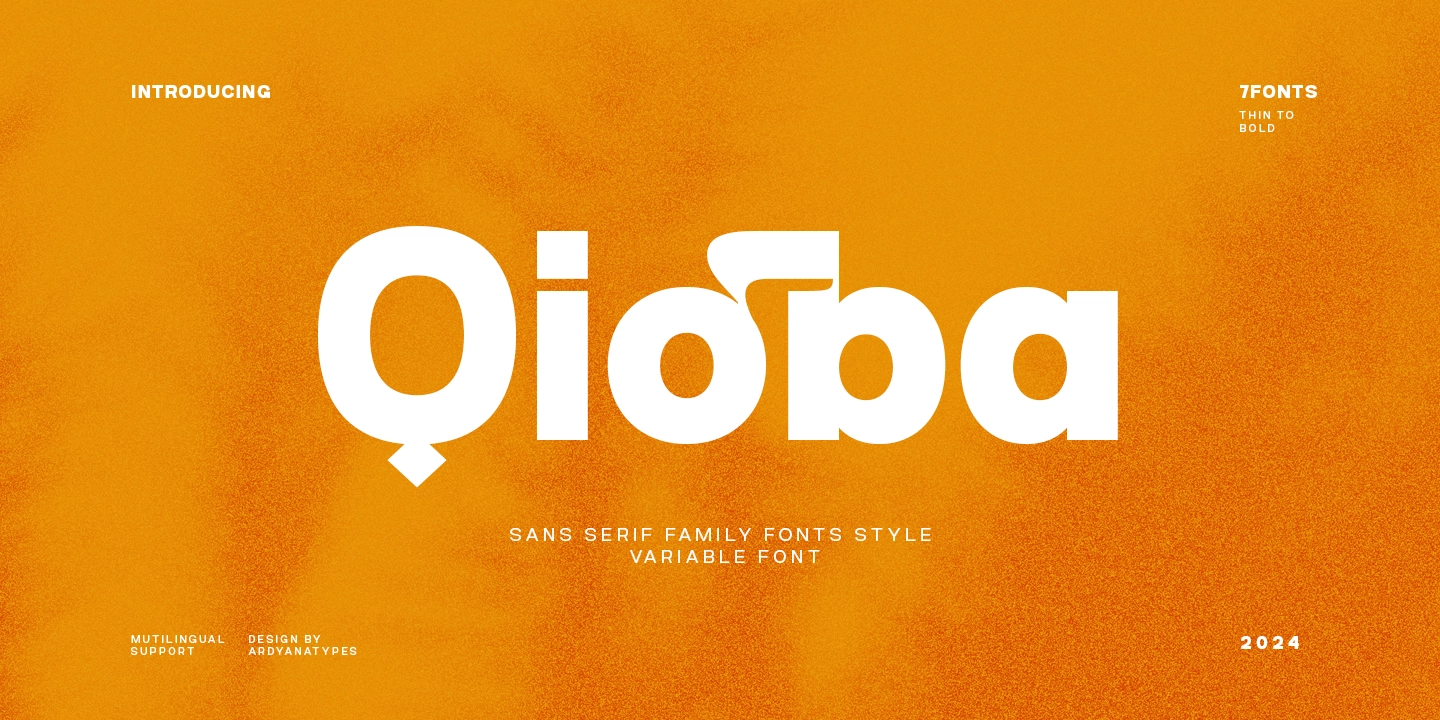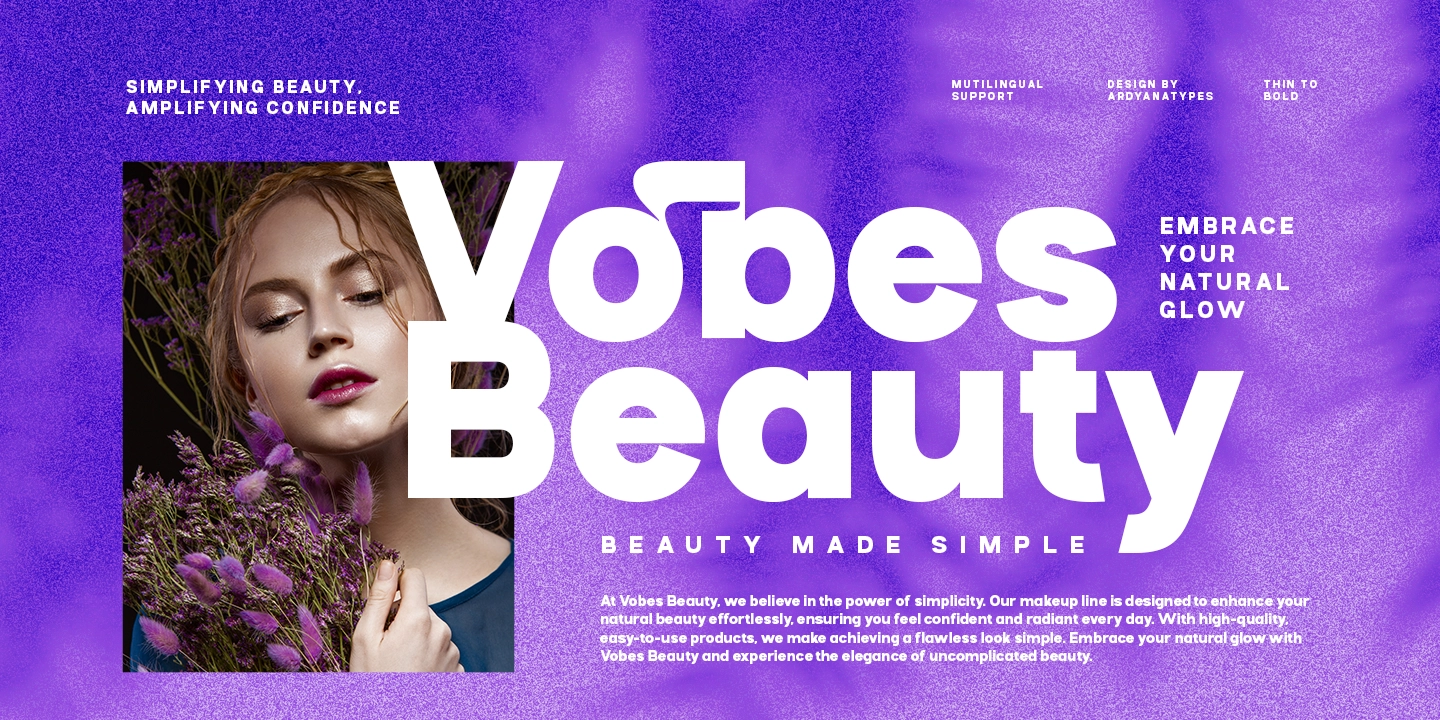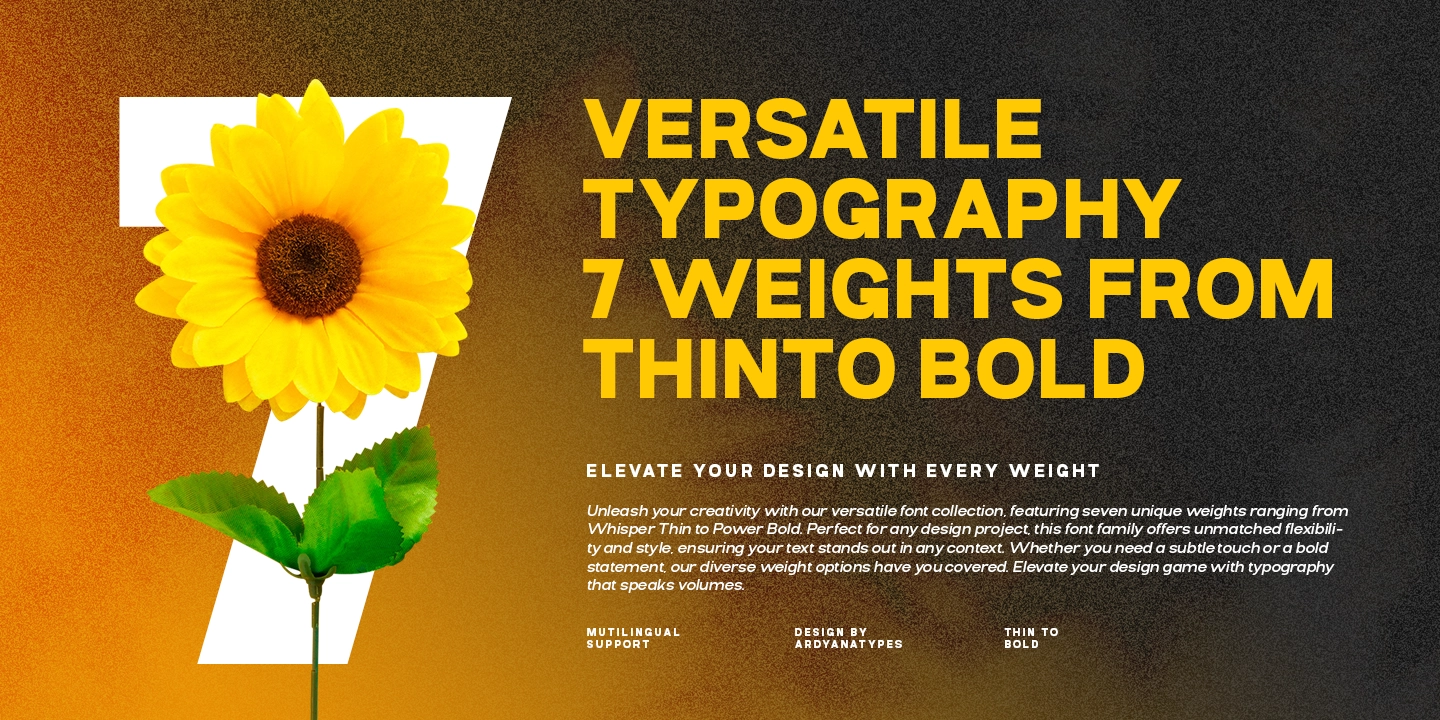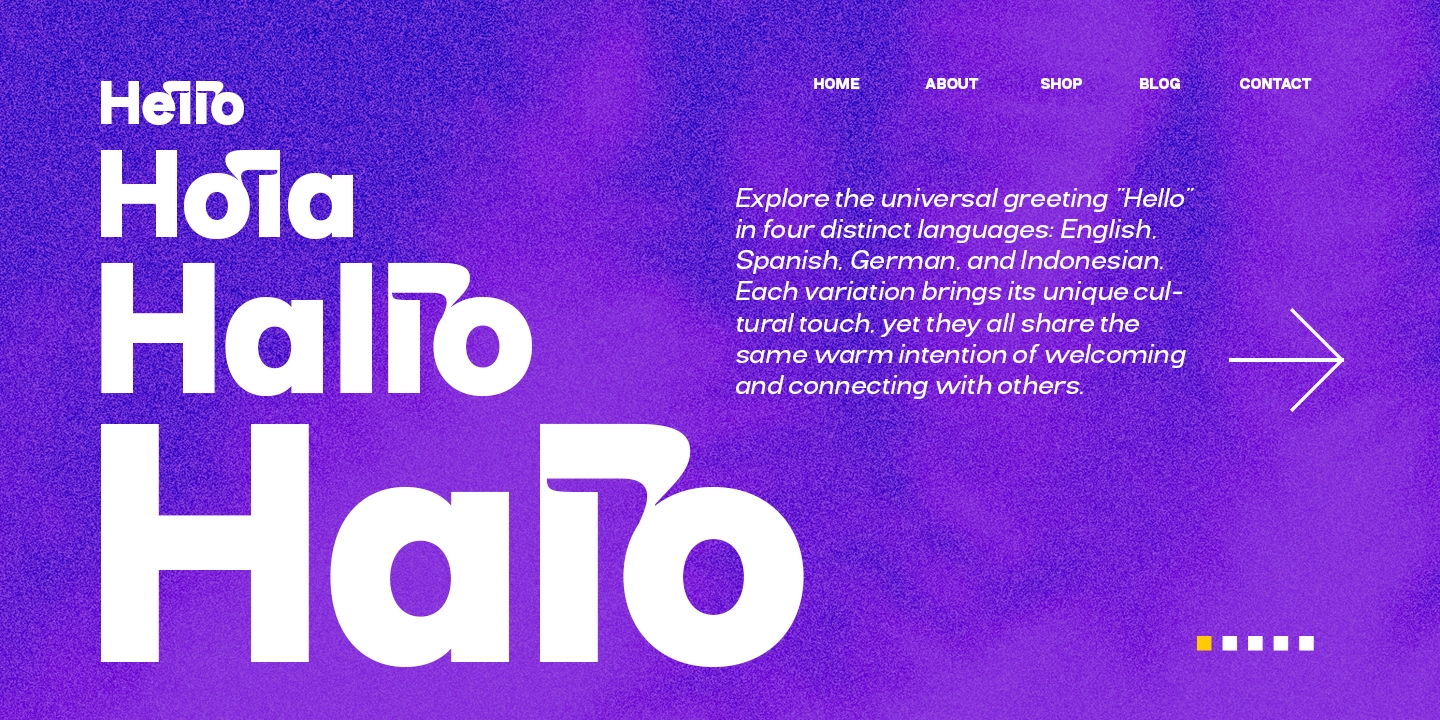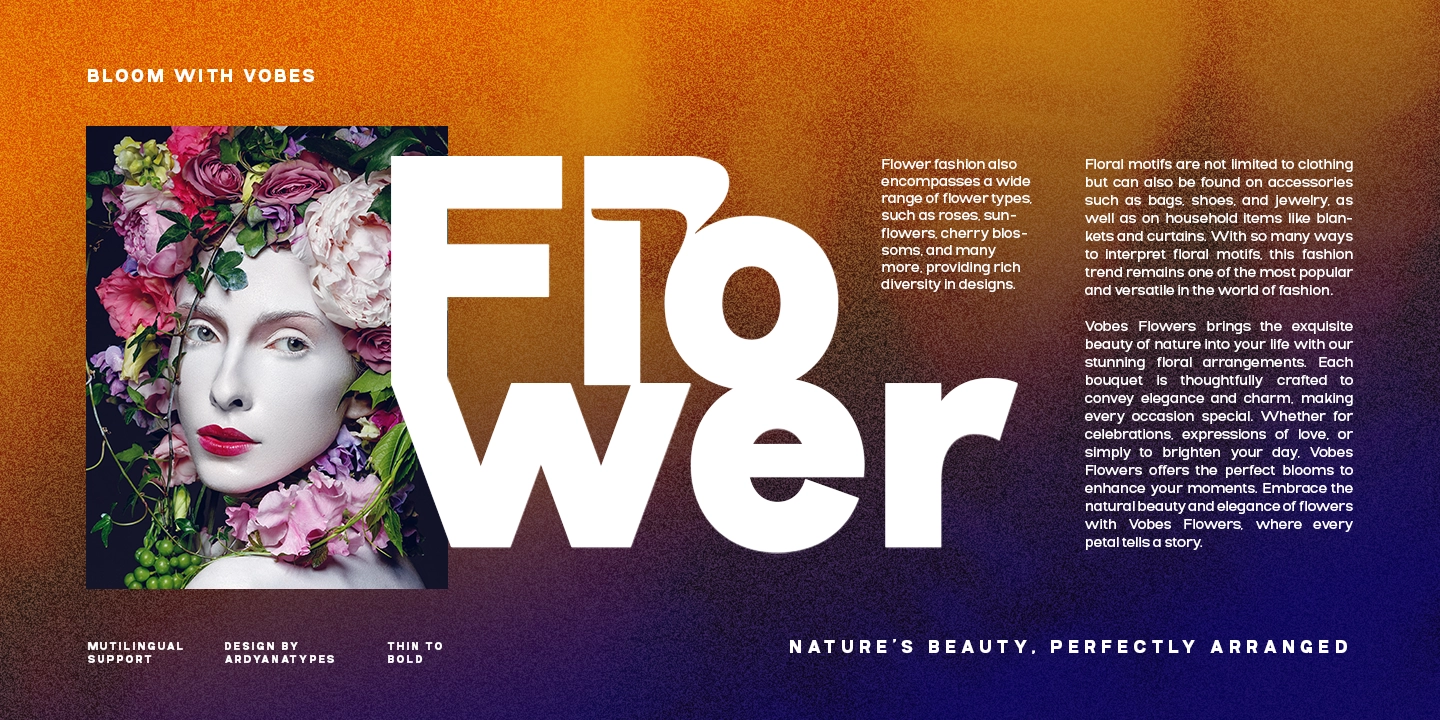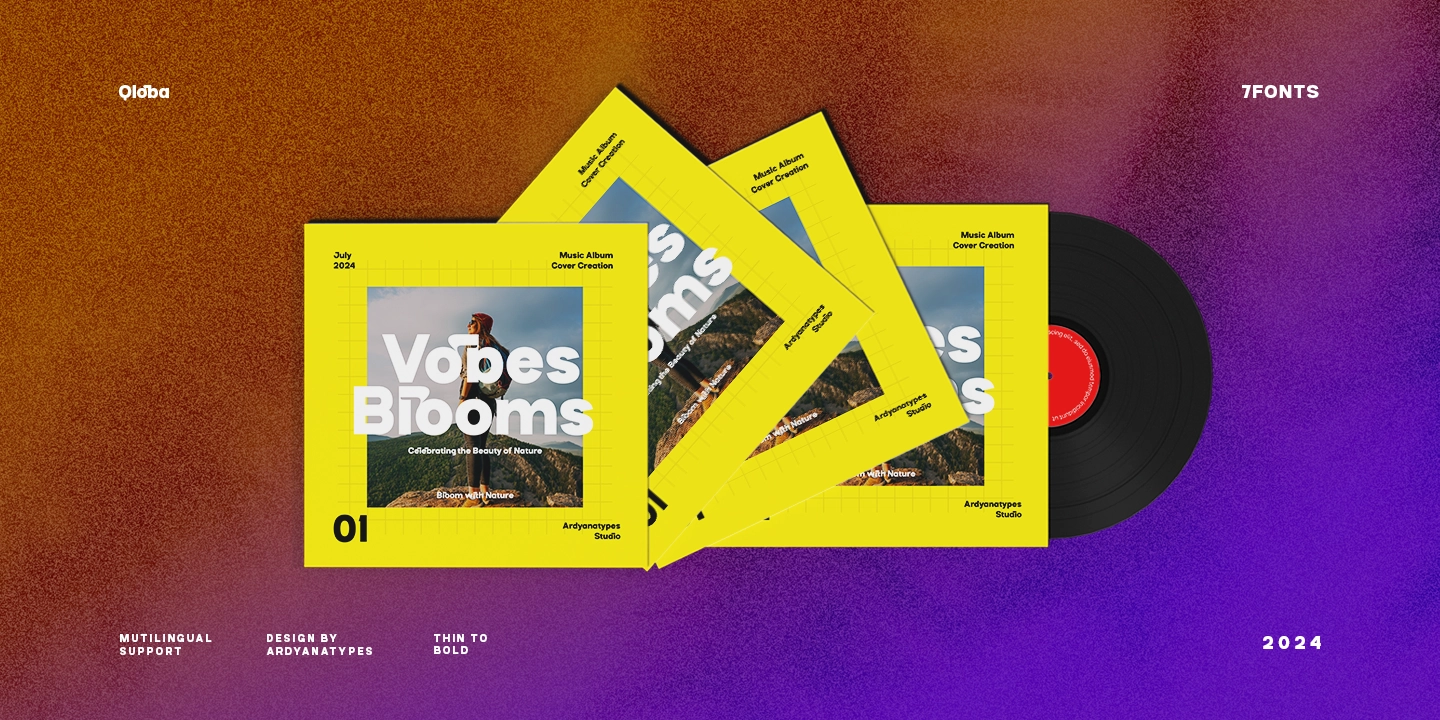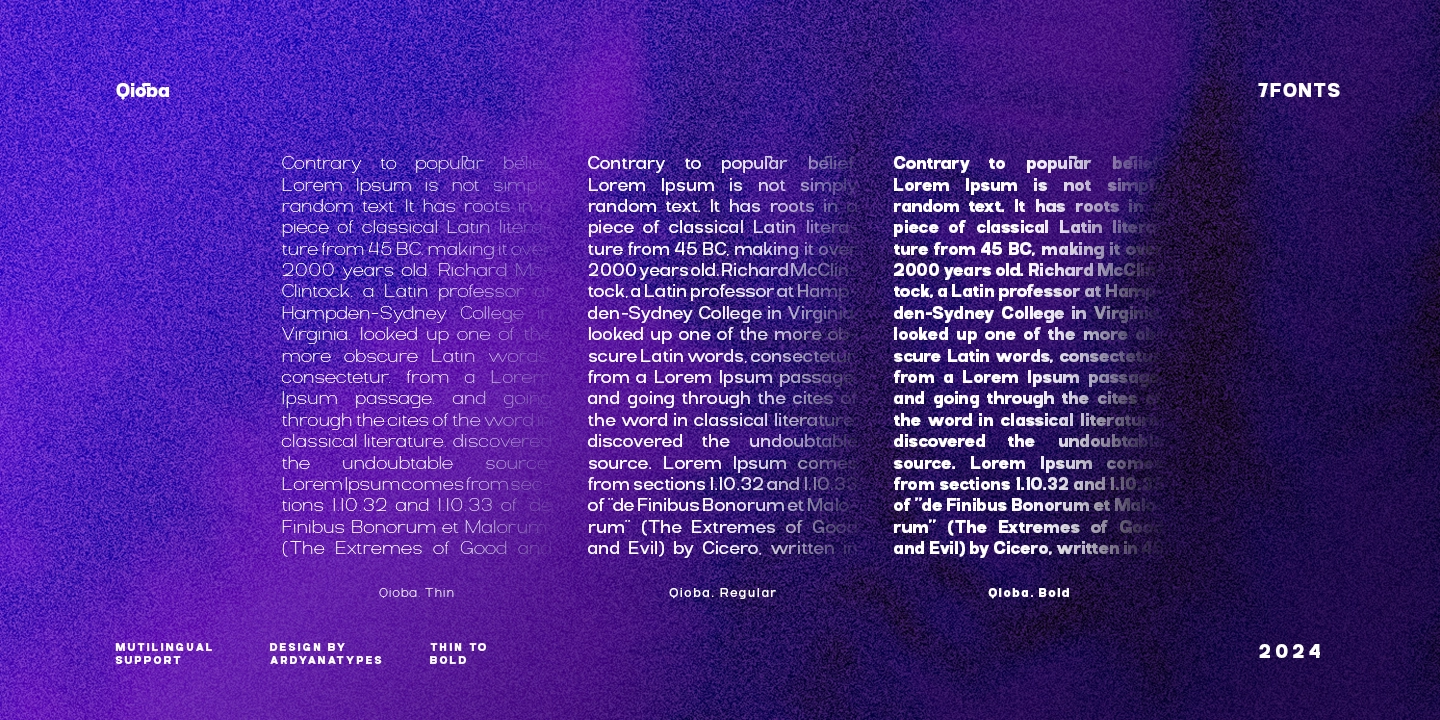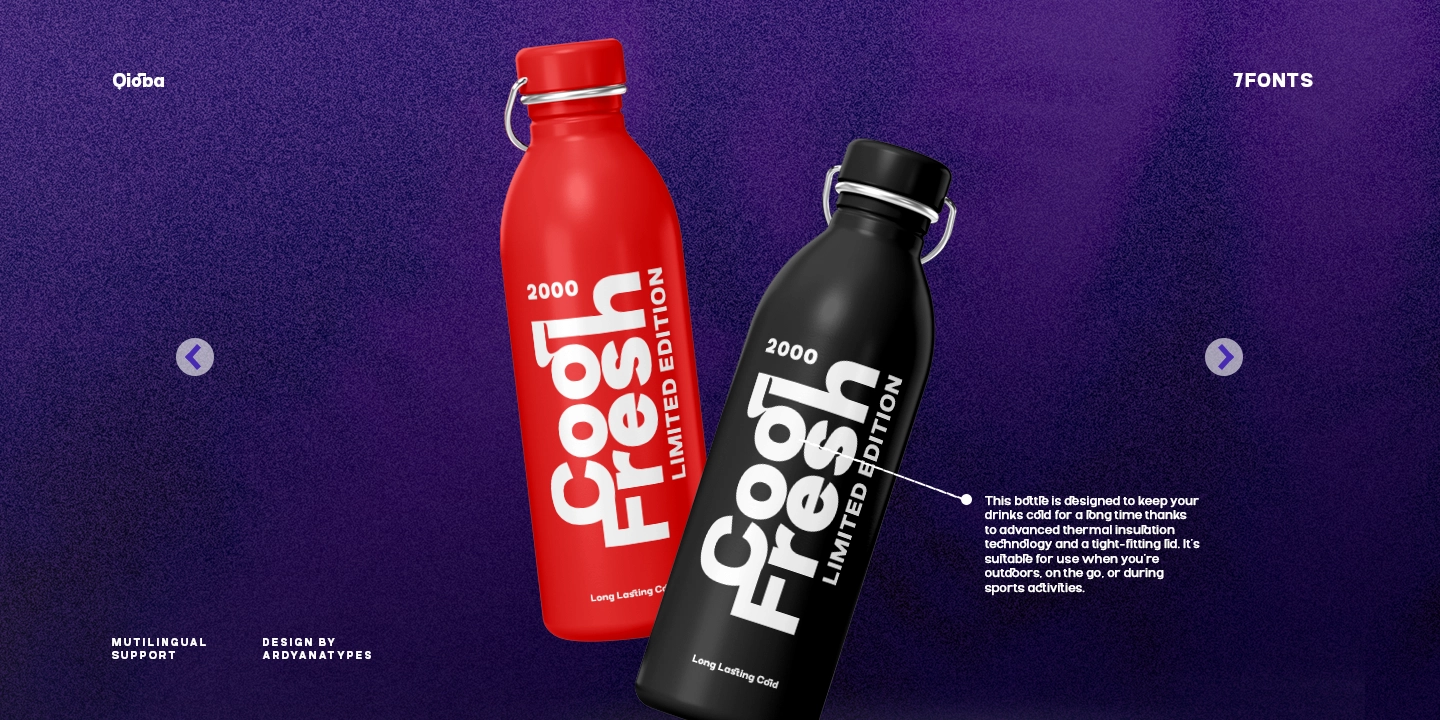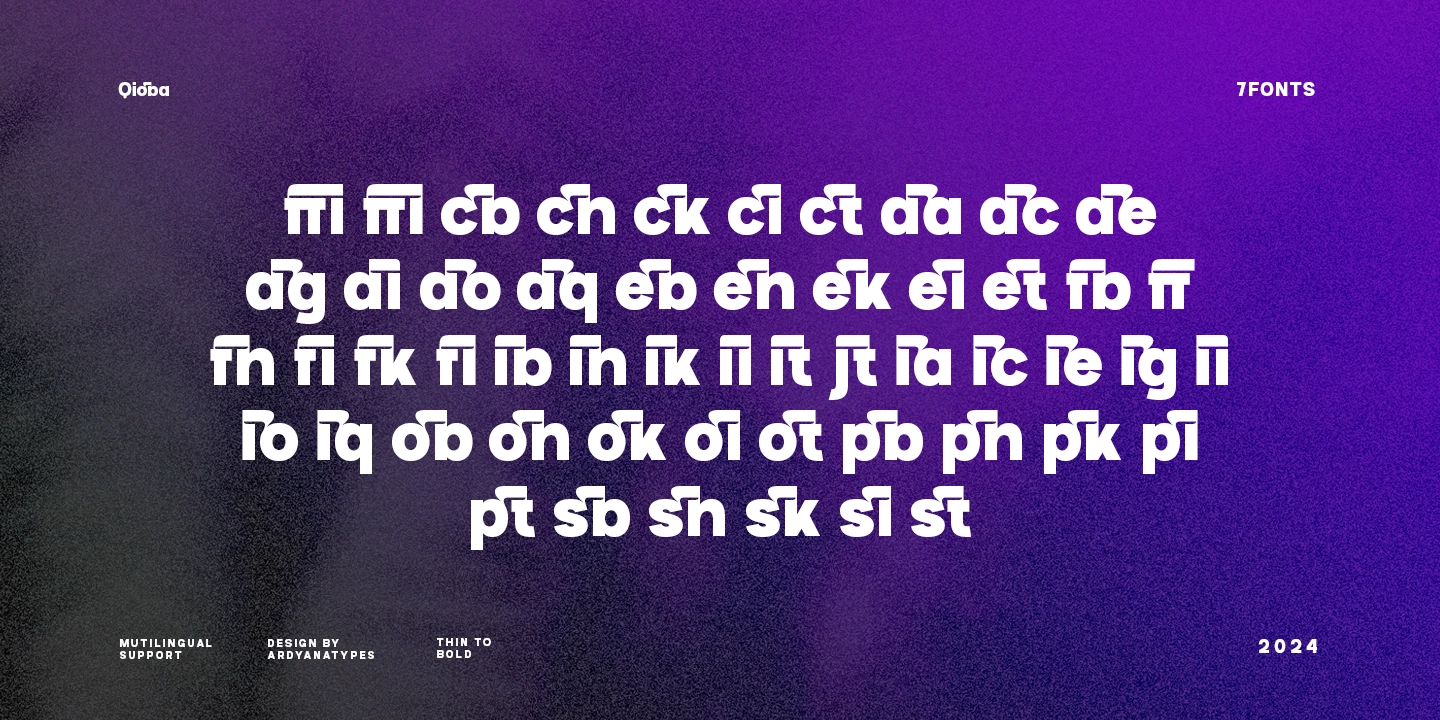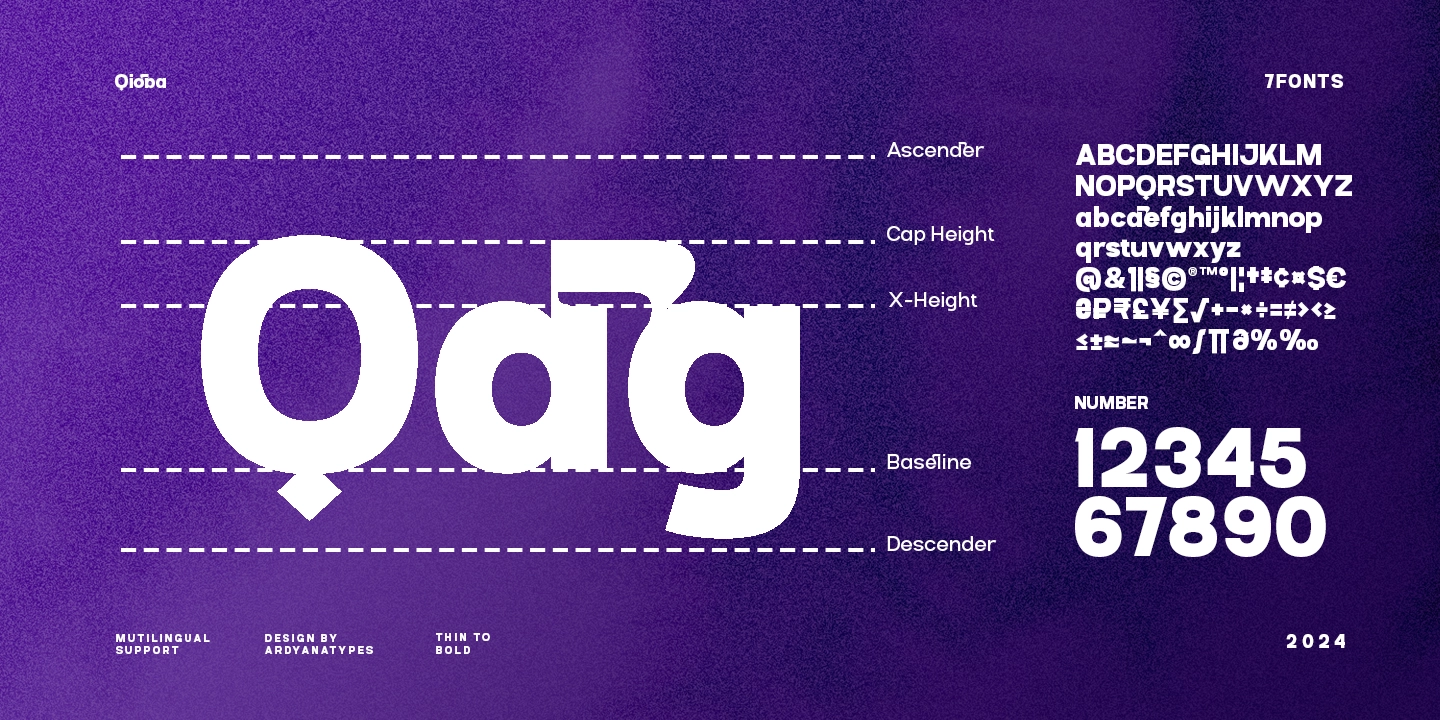
Qioba
Qioba is a unique sans serif font crafted with meticulous attention to detail. This font is designed to provide an attractive and professional look to various design projects. Equipped with OpenType features, Qioba offers numerous variations in each character, allowing for greater flexibility and creativity in its use.
Qioba font also supports multiple languages, making it an ideal choice for various international needs. With its versatile design, Qioba is perfect for use in projects such as branding media, logos, movie posters, books, business cards, and many more.
With Qioba, every design project will stand out and look more professional.
• ffi ffi
• ffl ffl
• cb cb
• ch ch
• ck ck
• cl cl
• da da
• dc dc
• de de
• dg dg
• di di
• do do
• dq dq
• eb eb
• eh eh
• ek ek
• el el
• et et
• fb fb
• fh fh
• fk fk
• fl fl
• ib ib
• ih ih
• ik ik
• il il
• it it
• jt jt
• la la
• lc lc
• le le
• lg lg
• li li
• lo lo
• lq lq
• ob ob
• oh oh
• ok ok
• ol ol
• ot ot
• pb pb
• ph ph
• pk pk
• pl pl
• pt pt
• sb sb
• sh sh
• sk sk
• sl sl